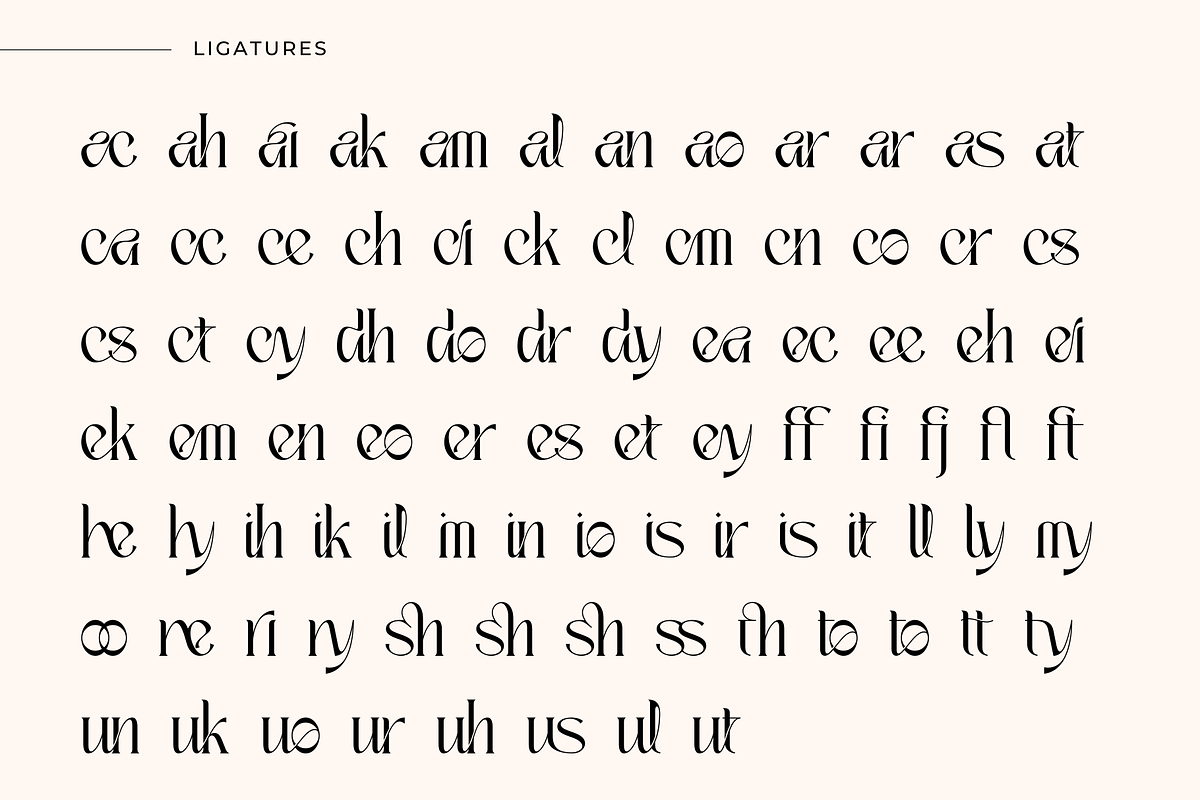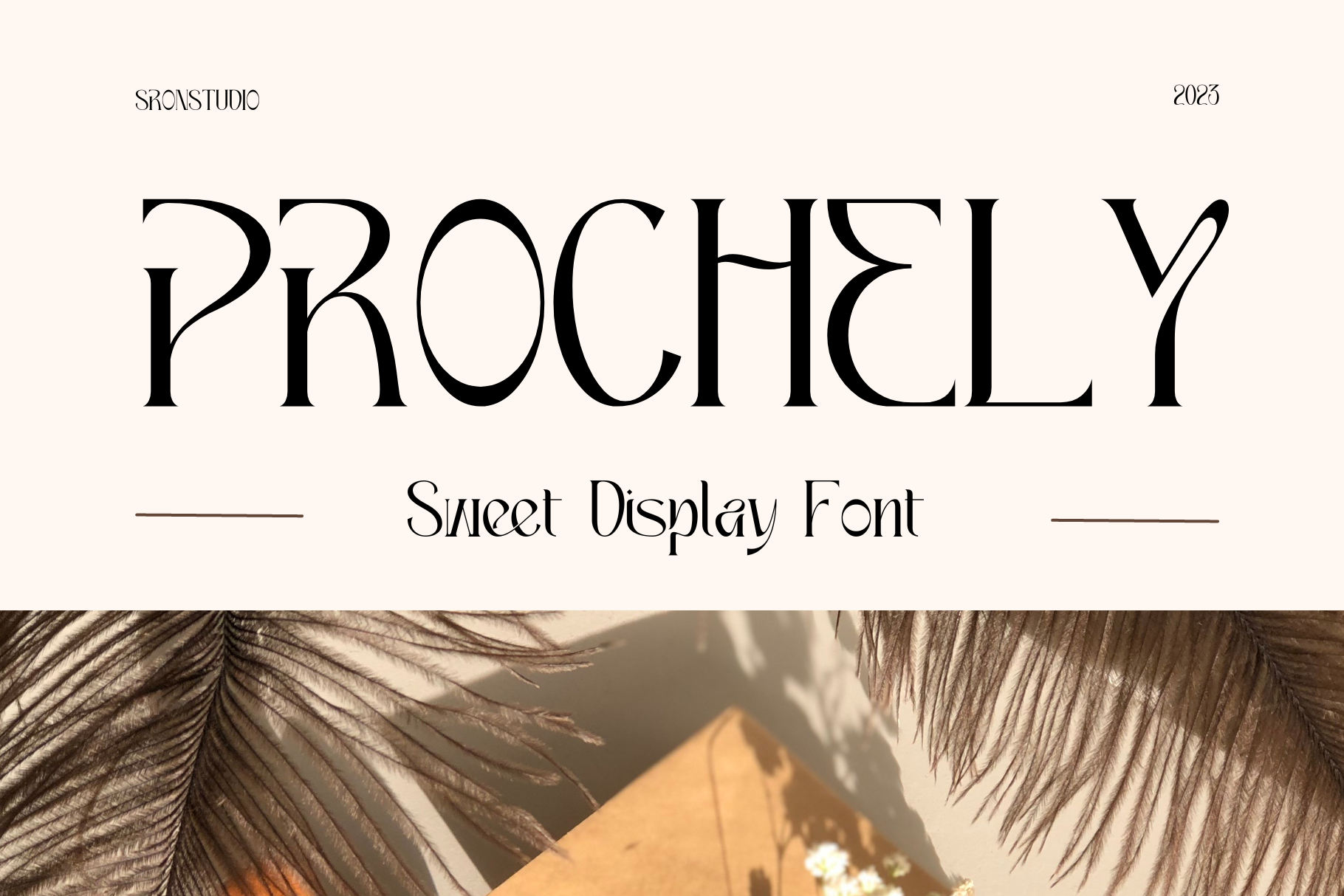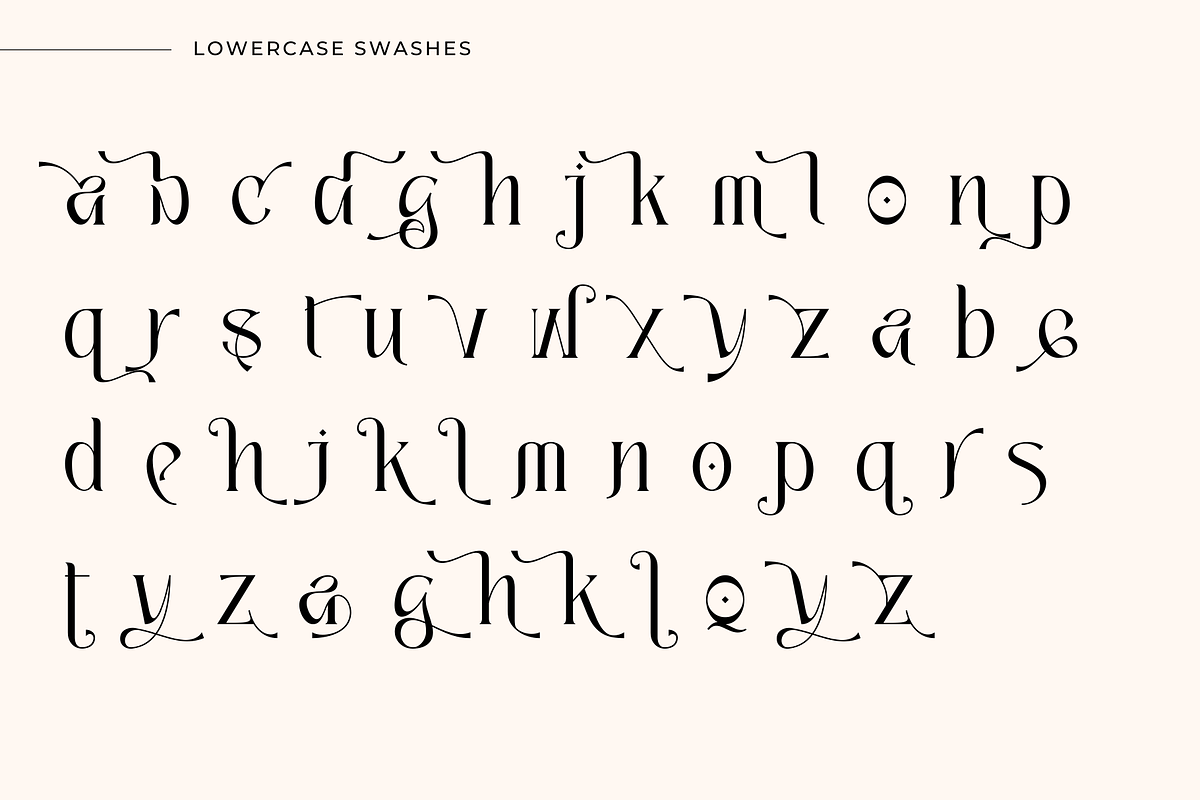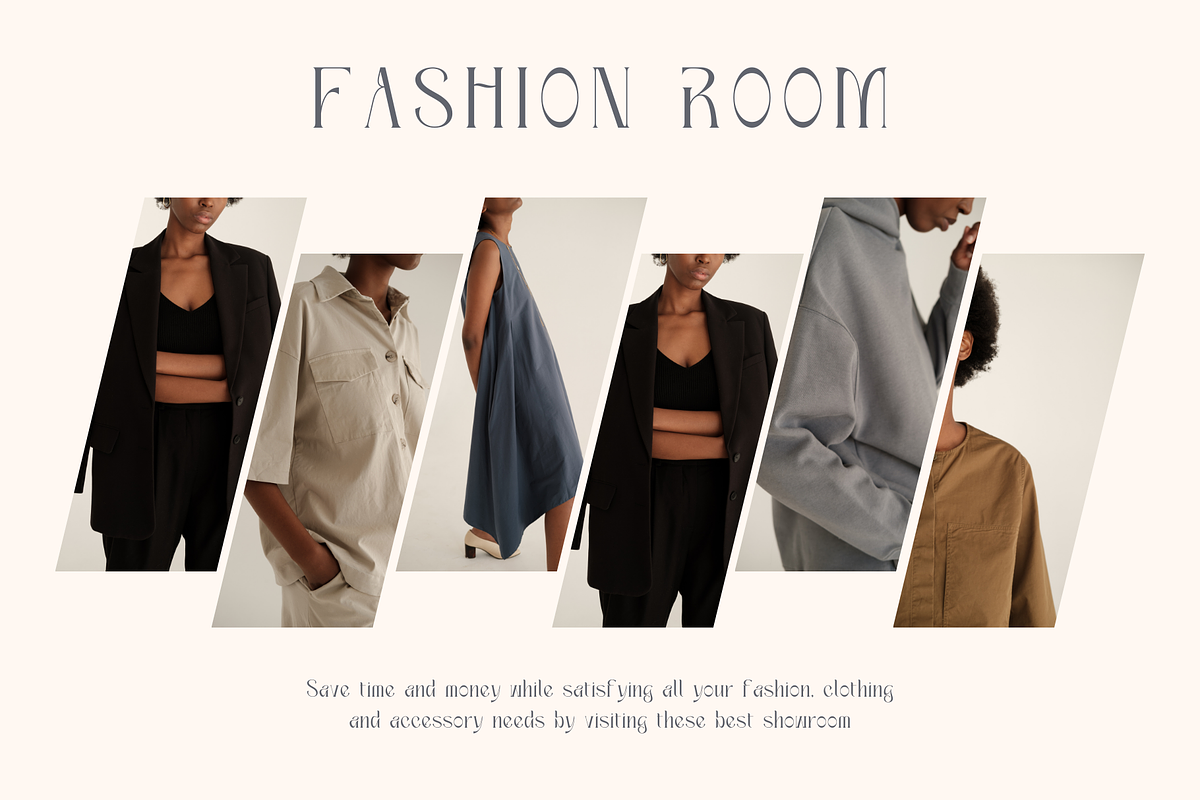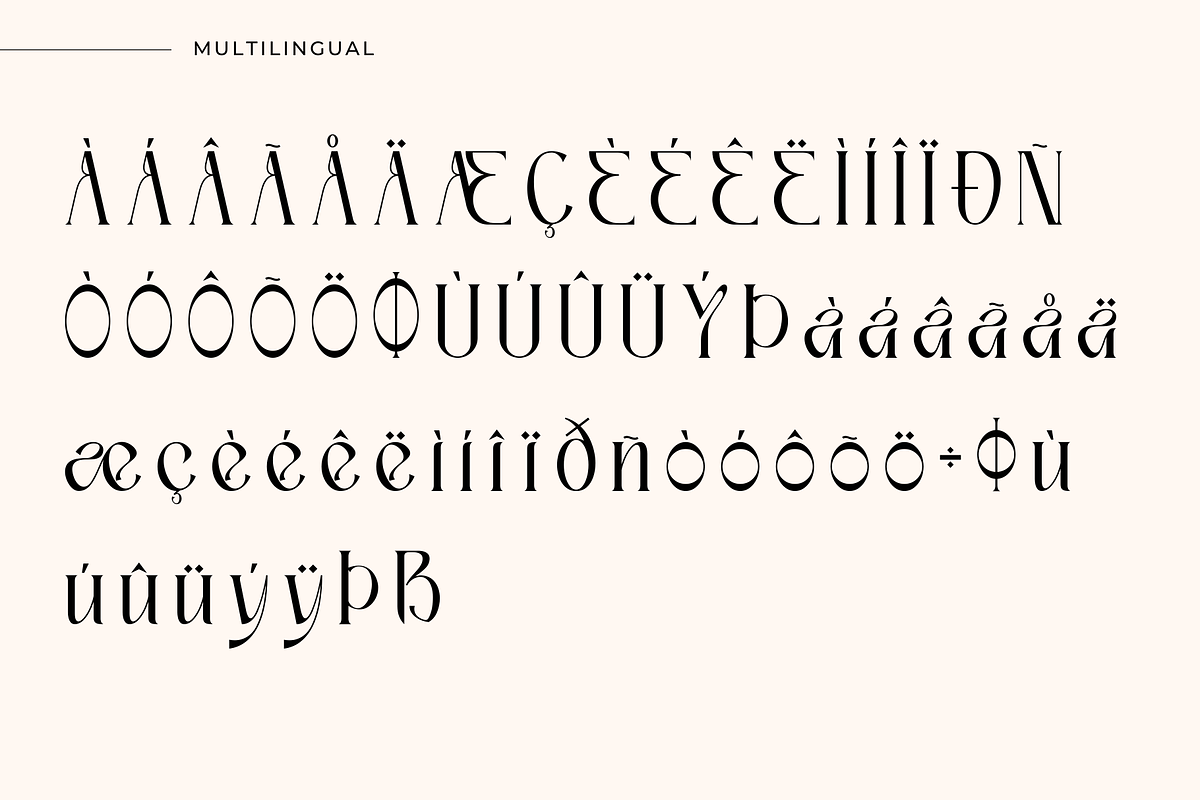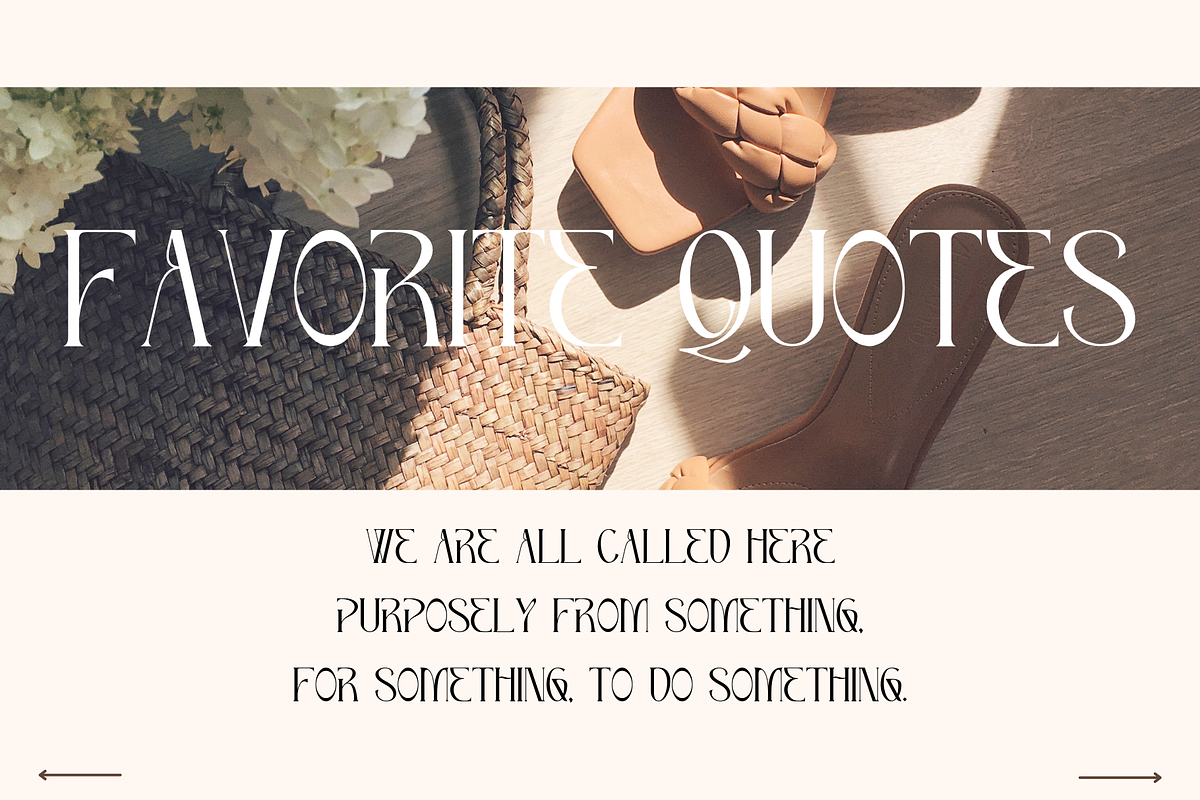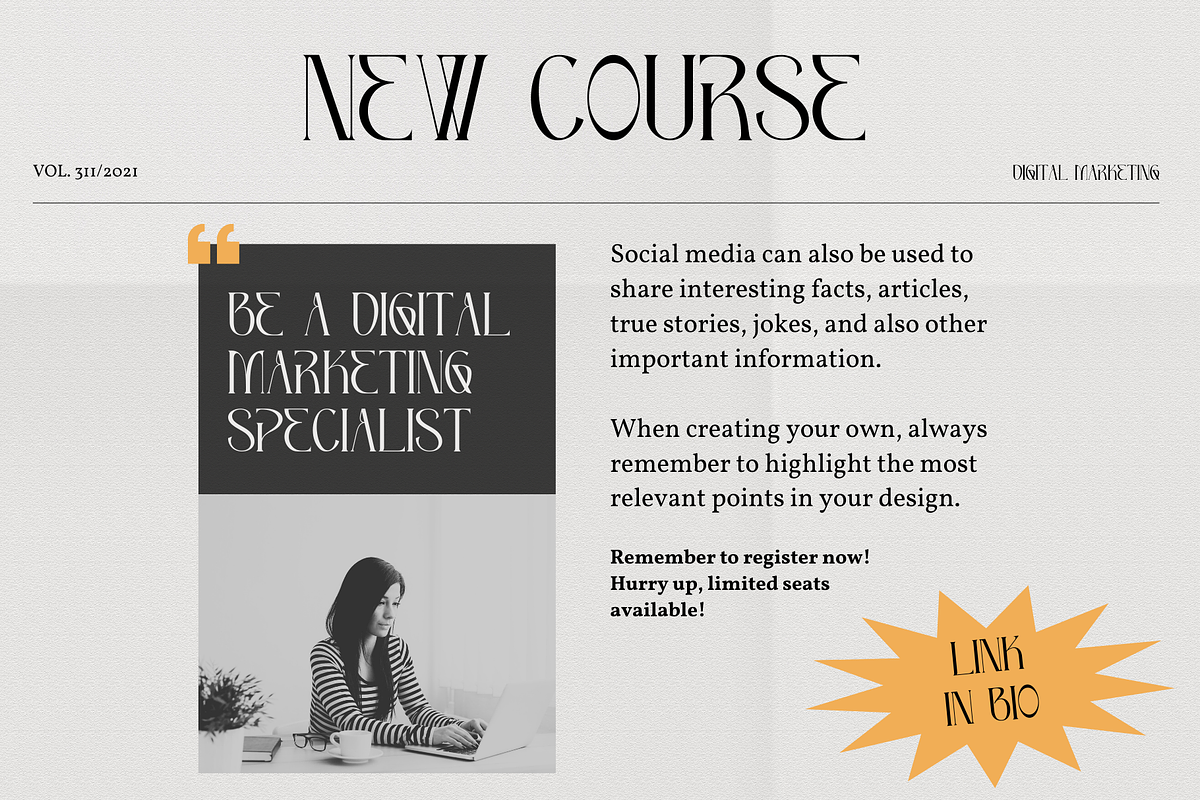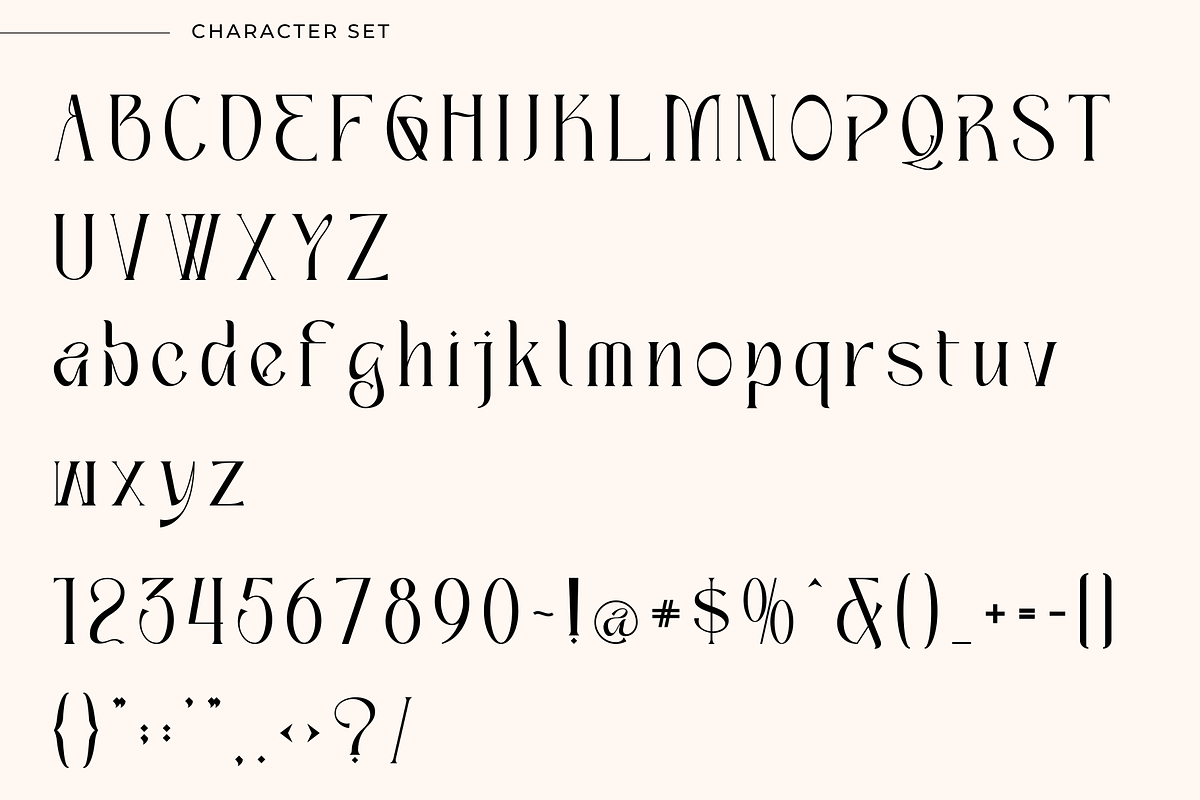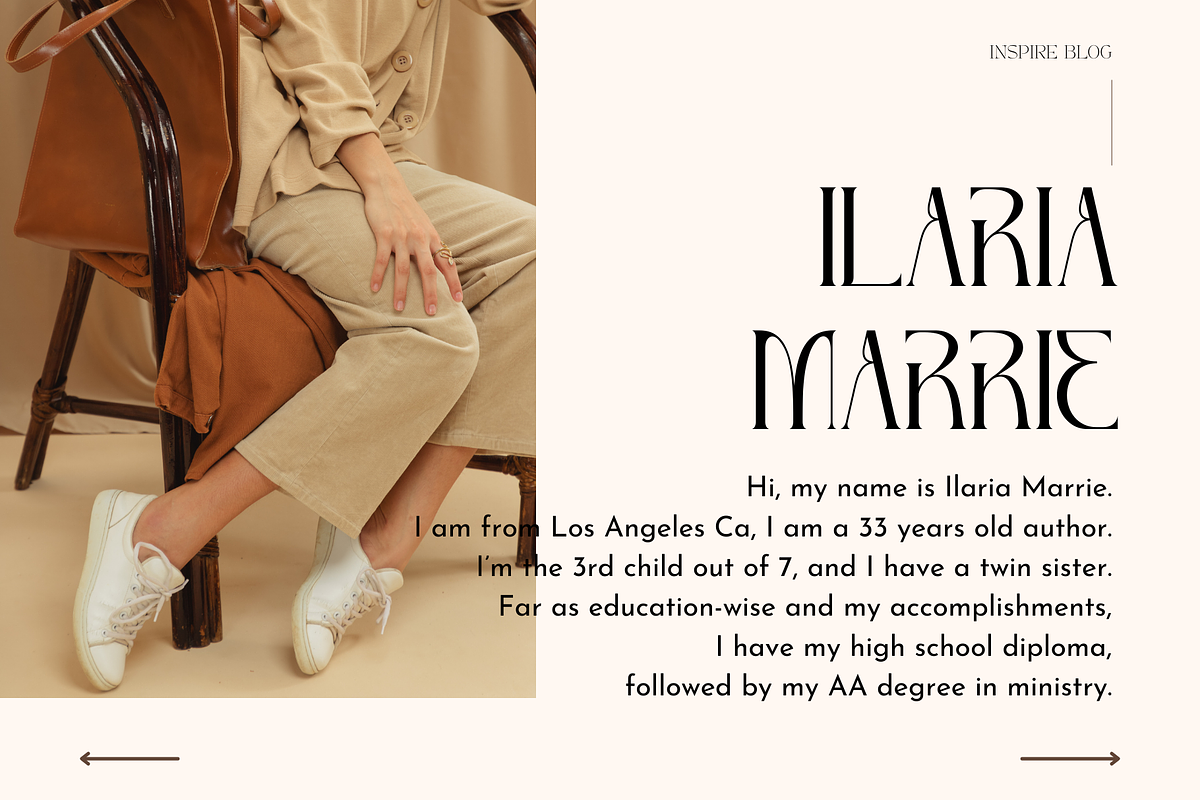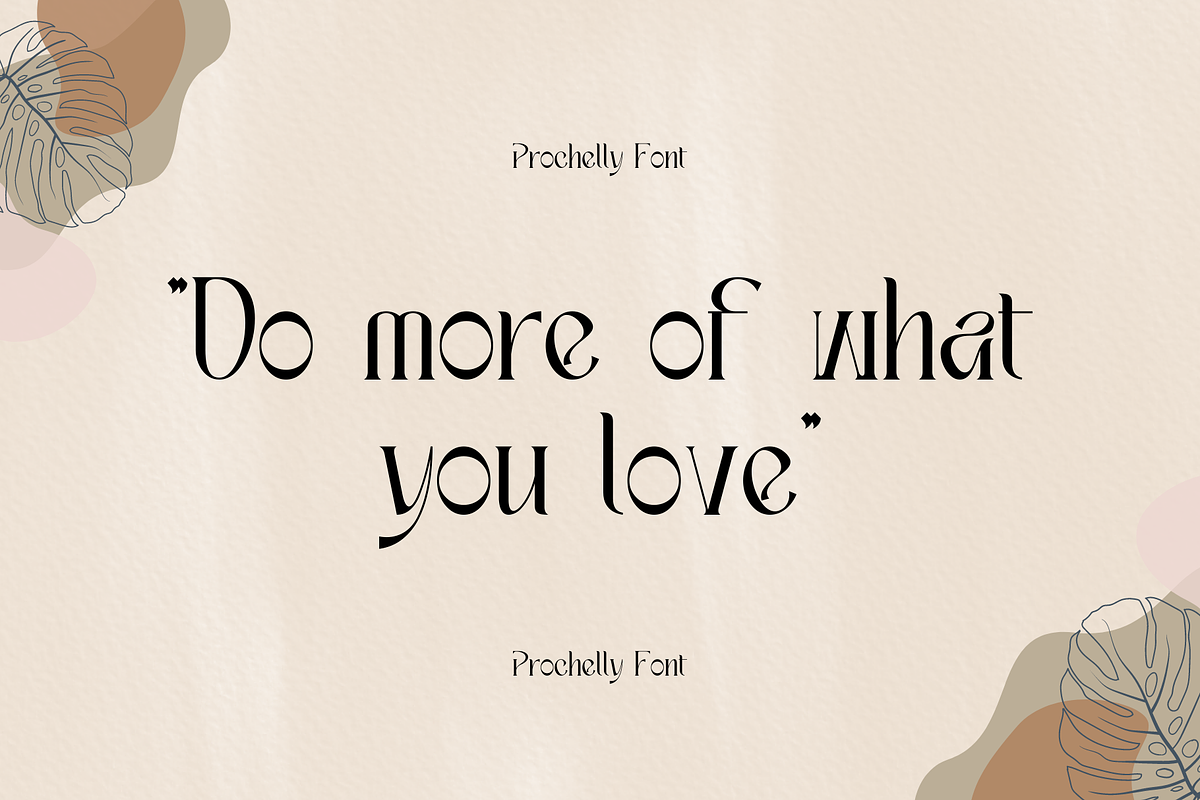
PROCHELY - Sweet Display Font
PROCHELY - Sweet Display Font, comes with an elegant and modern touch this font is perfect for branding, invitation, stationery, wedding designs, social media posts, advertisements, product packaging, product designs, label, photography, watermark, special events, more.
- Uppercase and lowercase letters
- Multilingual, numerals, and punctuation